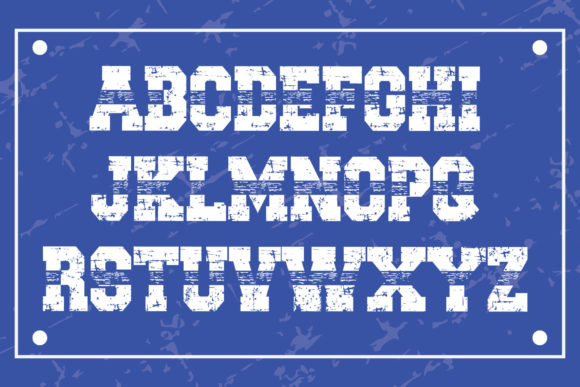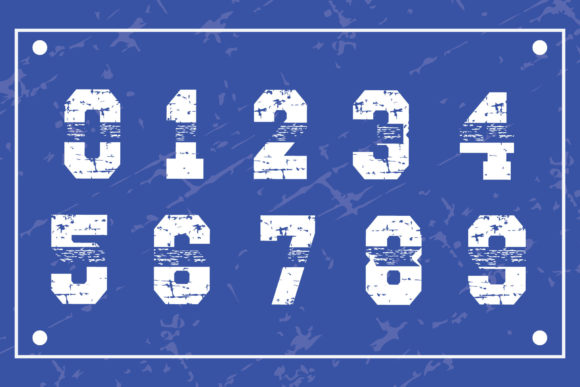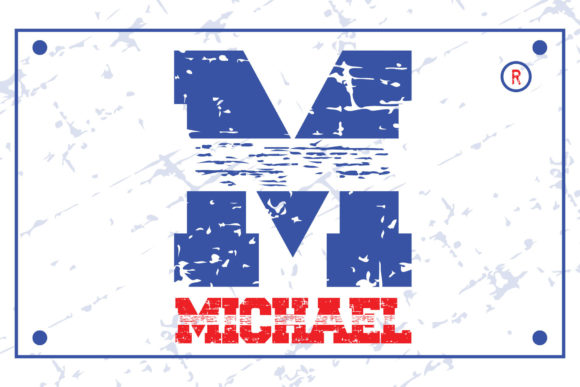
Introducing Denim Font: The Ultimate Display Font for Bold Designs
Are you tired of using the same old fonts for your designs? Look no further than Denim Font, a rough-textured, cool, and assertive display font that’s perfect for making a statement. With its unique blend of ruggedness and sophistication, Denim Font is sure to elevate your designs to the next level.
What is Denim Font?
Denim Font is a display font designed to add a touch of edginess to your designs. Its rough texture and bold lines give it a rugged, industrial feel that’s perfect for creating eye-catching posters, flyers, and prints. Whether you’re a designer, craftsperson, or simply someone who loves to create, Denim Font is a versatile and stylish choice that’s sure to impress.
Key Features of Denim Font
- Rough-textured design: Denim Font features a unique, rough texture that gives it a distinctive look and feel.
- Cool and assertive: With its bold lines and rugged design, Denim Font is the perfect choice for making a statement.
- High-quality design: Denim Font is designed to deliver high-quality results, even at large sizes.
- Easy to read: Despite its bold design, Denim Font is surprisingly easy to read, making it perfect for use on posters, flyers, and other printed materials.
Uses for Denim Font
Denim Font is a versatile design tool that can be used in a variety of contexts. Here are just a few ideas to get you started:
- Posters and flyers: Denim Font is perfect for creating eye-catching posters and flyers that are sure to grab attention.
- Printmaking: With its bold design and rough texture, Denim Font is a natural fit for printmaking projects.
- Branding and advertising: Denim Font can be used to create bold, eye-catching branding and advertising materials that are sure to stand out.
- DIY crafts: Denim Font is a great choice for crafters who want to add a touch of personality to their projects.
Tips for Using Denim Font
Here are a few tips for getting the most out of Denim Font:
- Use it boldly: Denim Font is designed to make a statement, so don’t be afraid to use it boldly.
- Experiment with colors: Denim Font looks great in a variety of colors, so don’t be afraid to experiment and find the perfect hue for your design.
- Pair it with other fonts: Denim Font can be paired with a variety of other fonts to create interesting and dynamic designs.
Denim Font is a unique and versatile display font that’s perfect for designers, crafters, and anyone who loves to create. With its rough-textured design, cool and assertive style, and high-quality construction, Denim Font is sure to elevate your designs to the next level. So why wait? Download Denim Font today and explore its endless possibilities!
Endless Possibilities with Denim Font
Denim Font offers a world of creative possibilities, from bold posters and eye-catching flyers to unique printmaking projects and DIY crafts. Whether you’re a seasoned designer or just starting out, Denim Font is a valuable addition to your design toolkit.